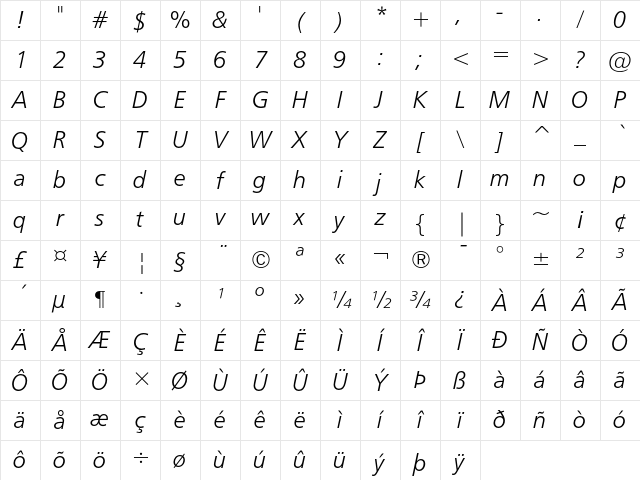
Humanist 777 Light Italic
Design Context for Humanist 777
Humanist 777 is a composed and adaptable typeface that performs quietly and consistently across a wide range of design contexts. The slanted form adds forward momentum and visual energy. Its slender proportions lend an understated elegance to any composition.
Pro Tip: Use Humanist 777 for emphasis, pull quotes, and subheadings where its slanted energy can add rhythm to the layout.